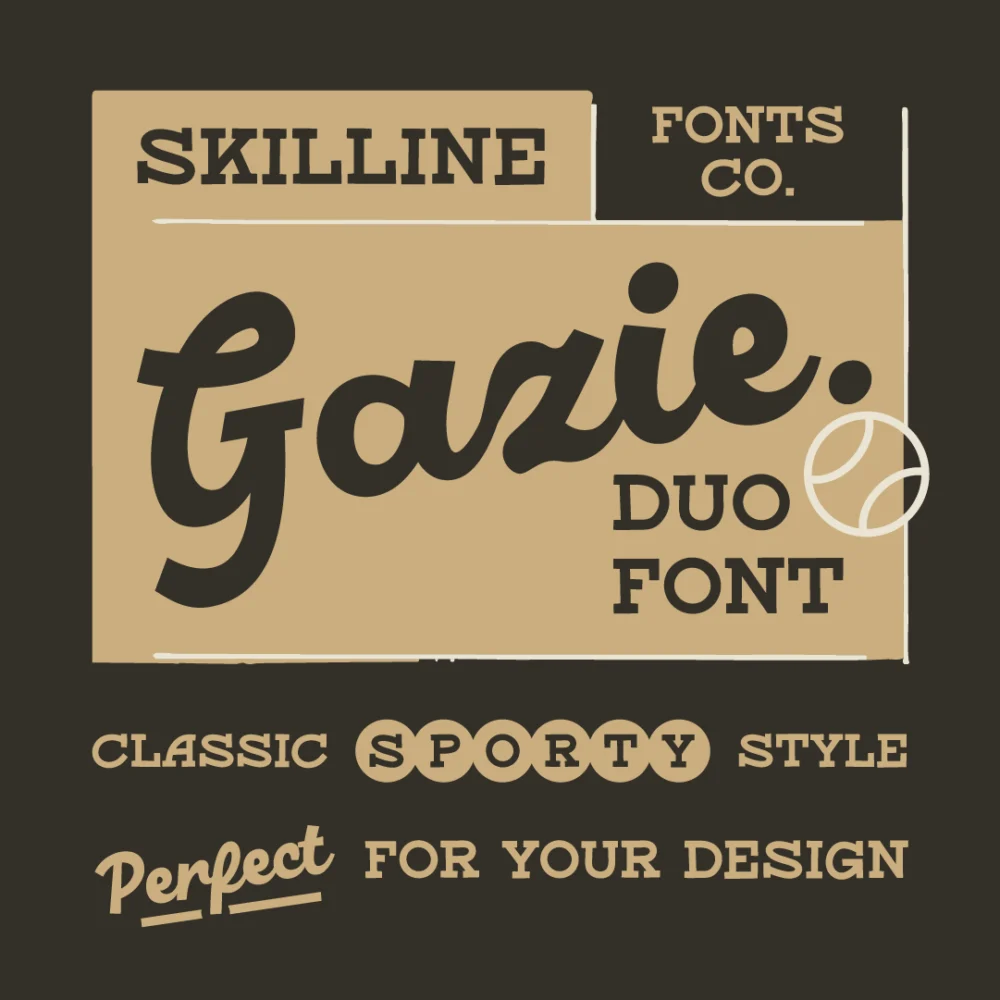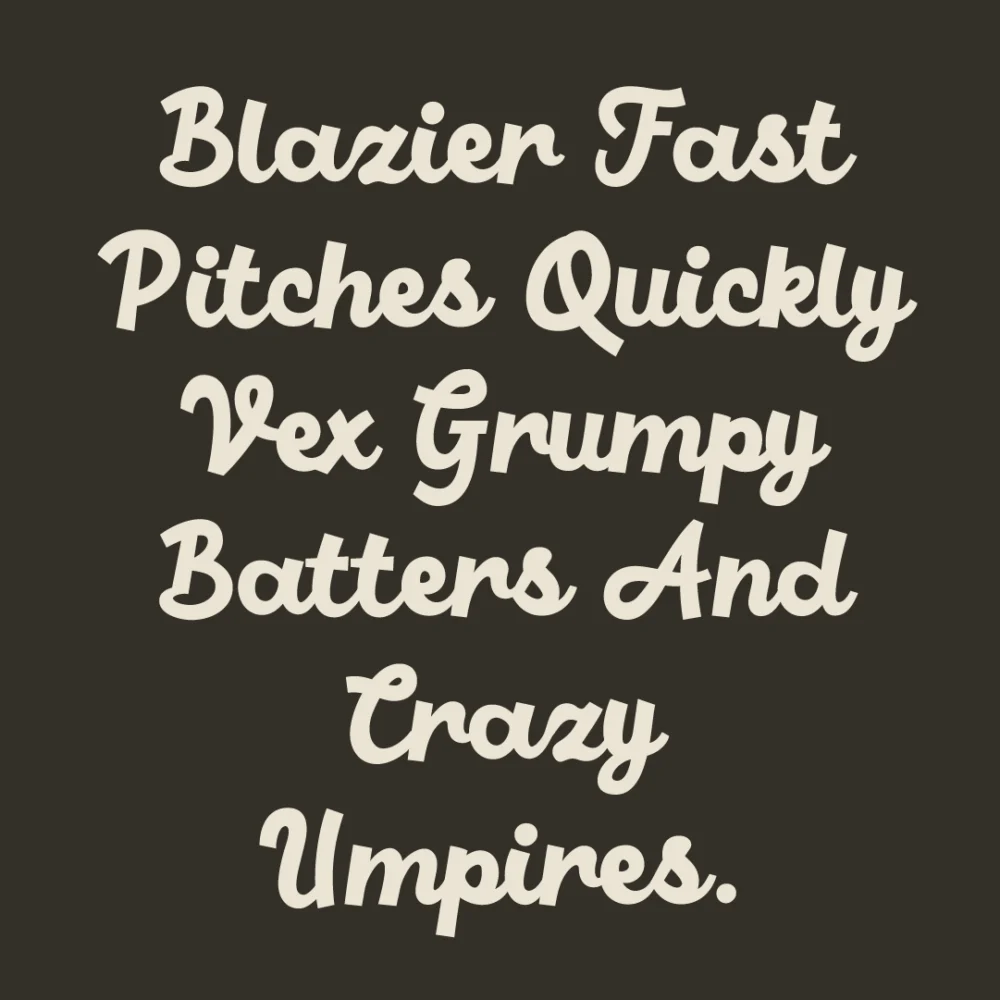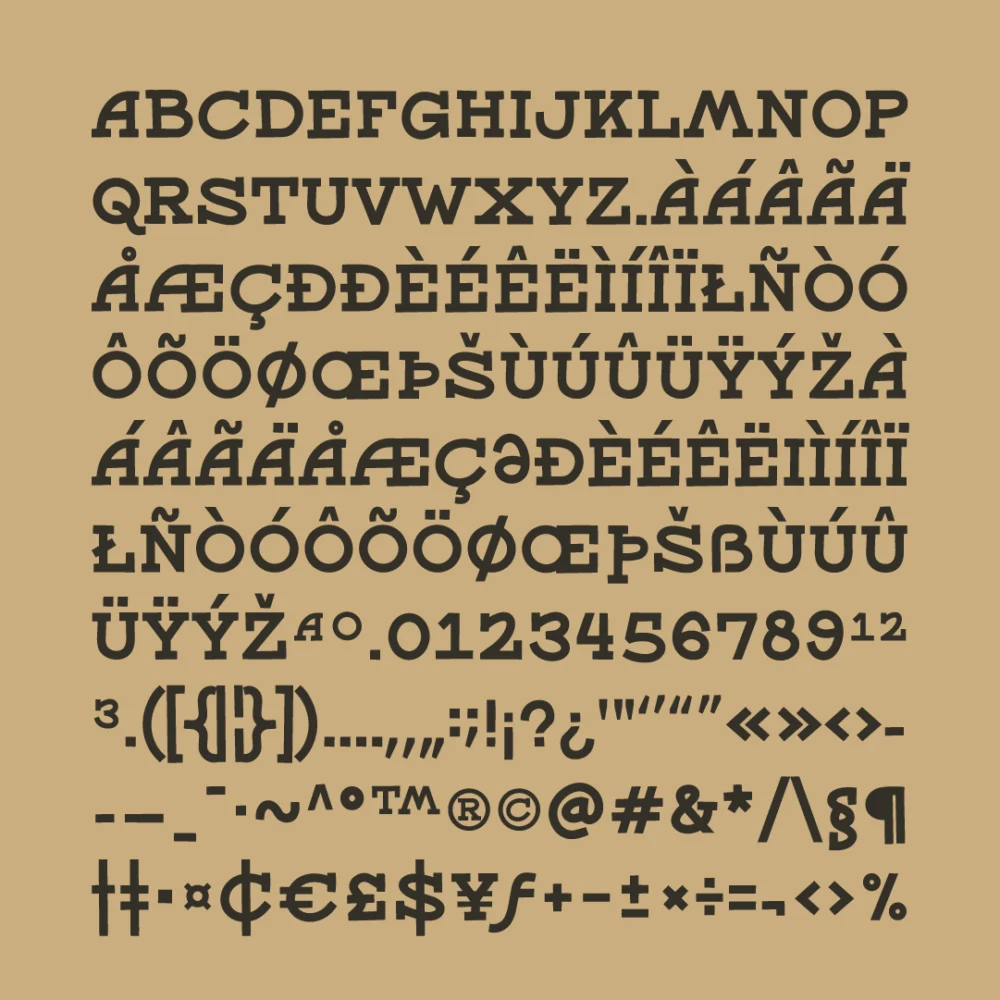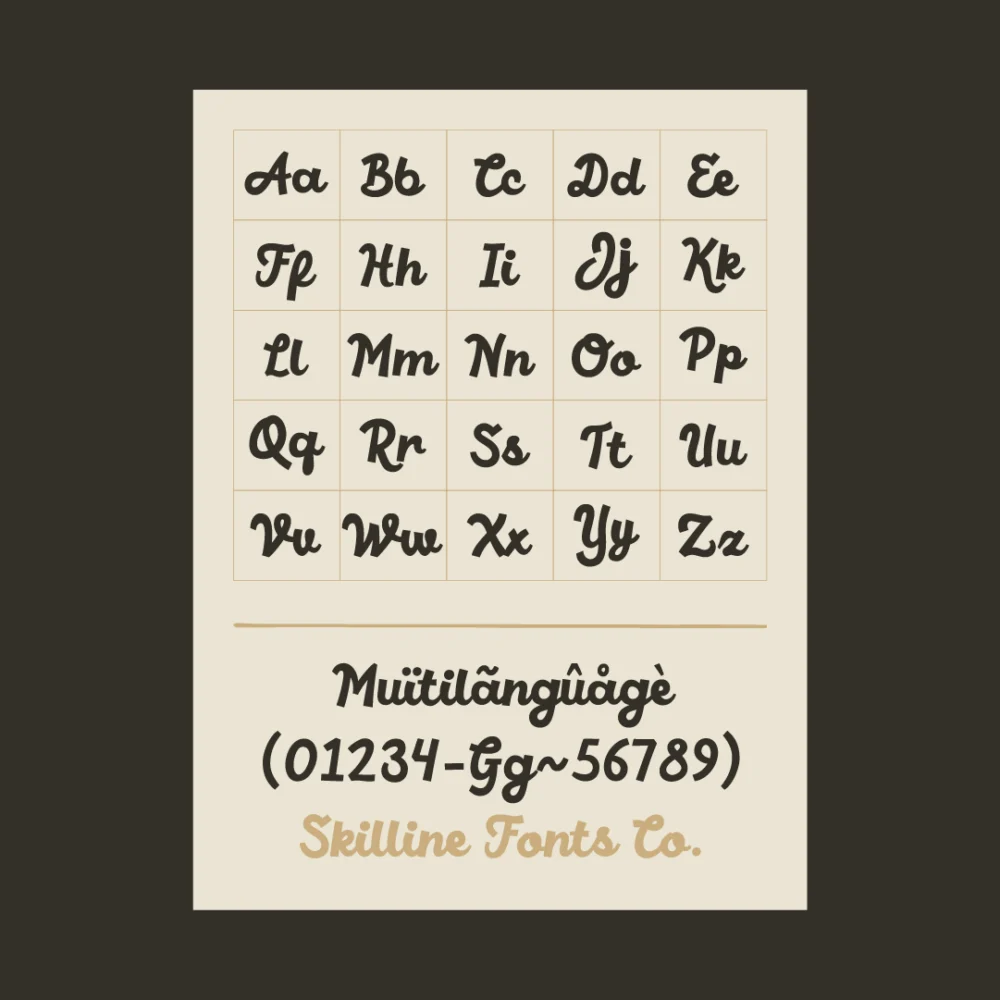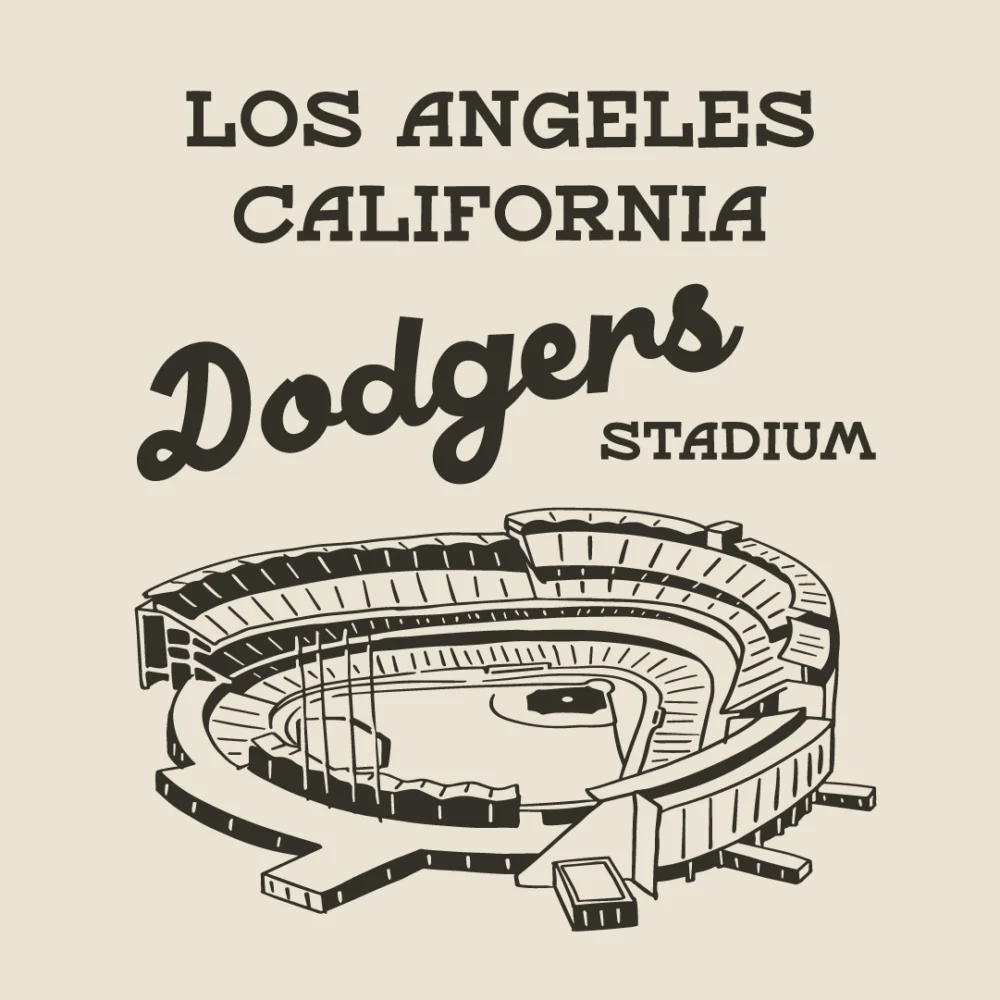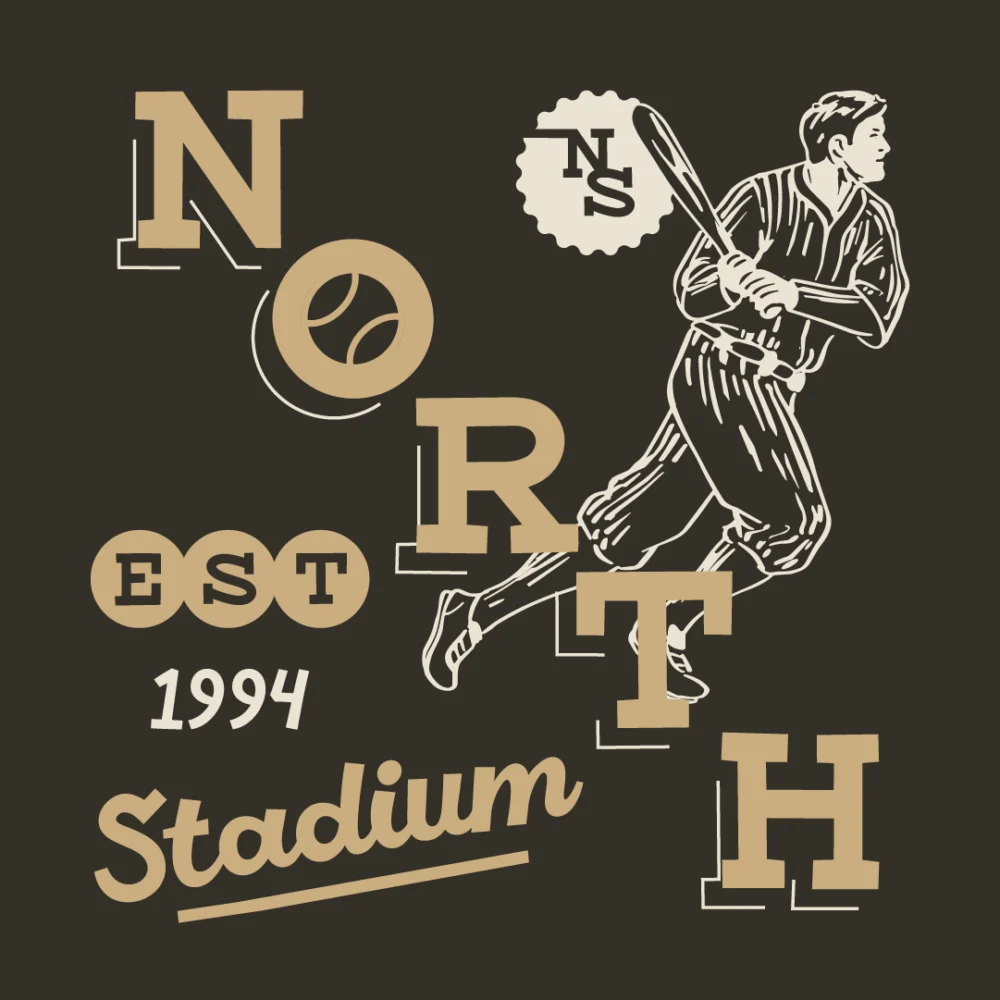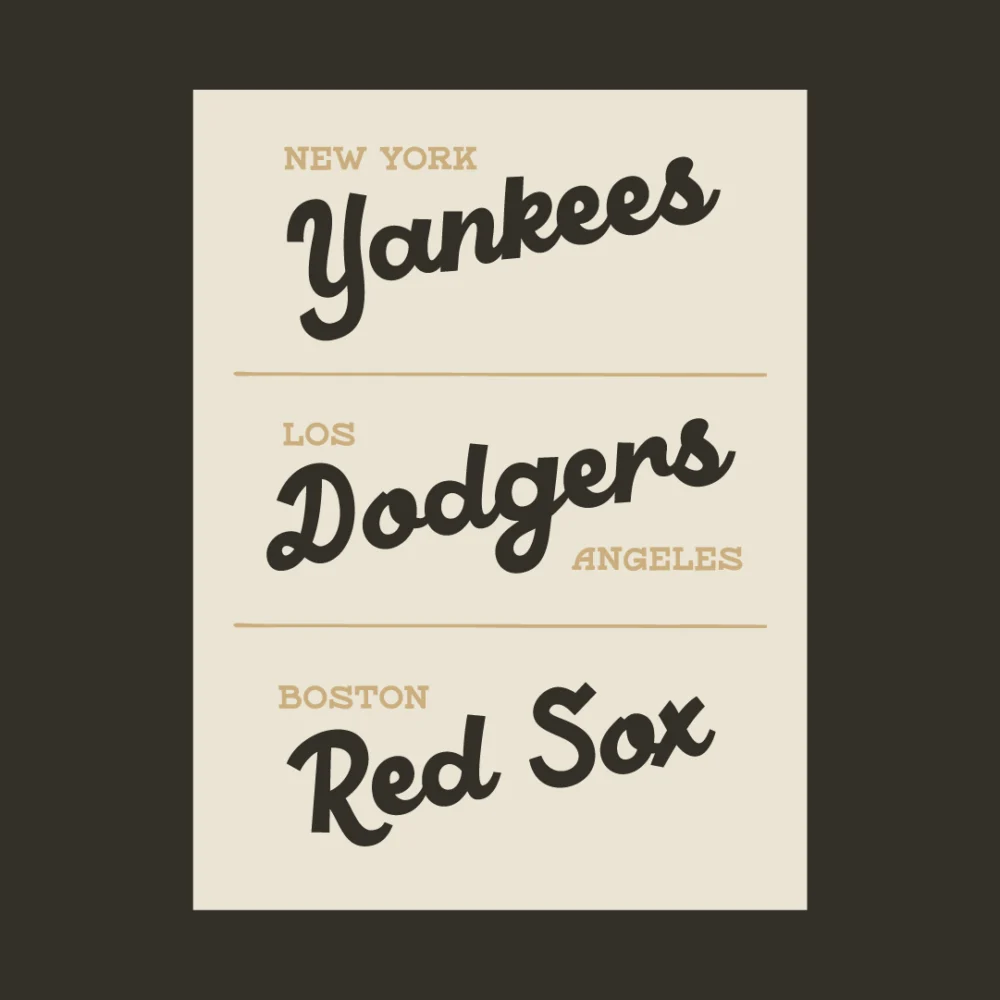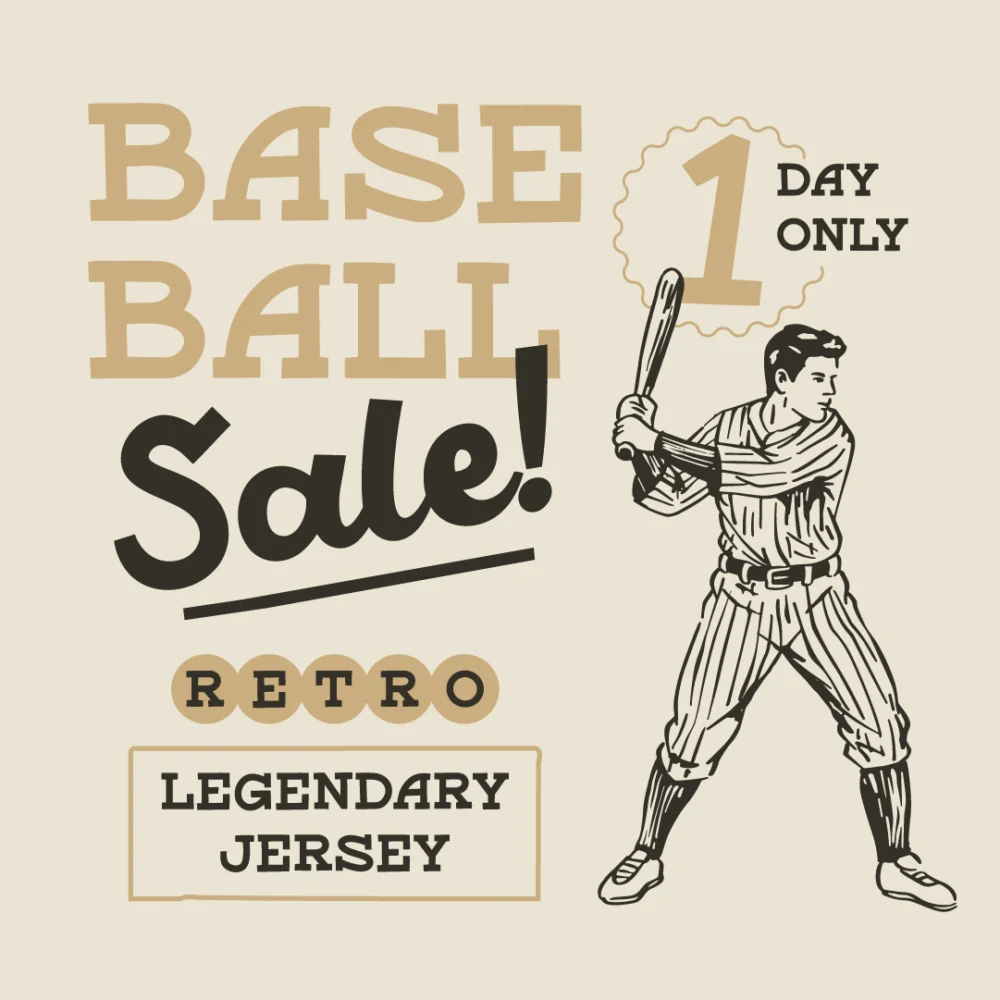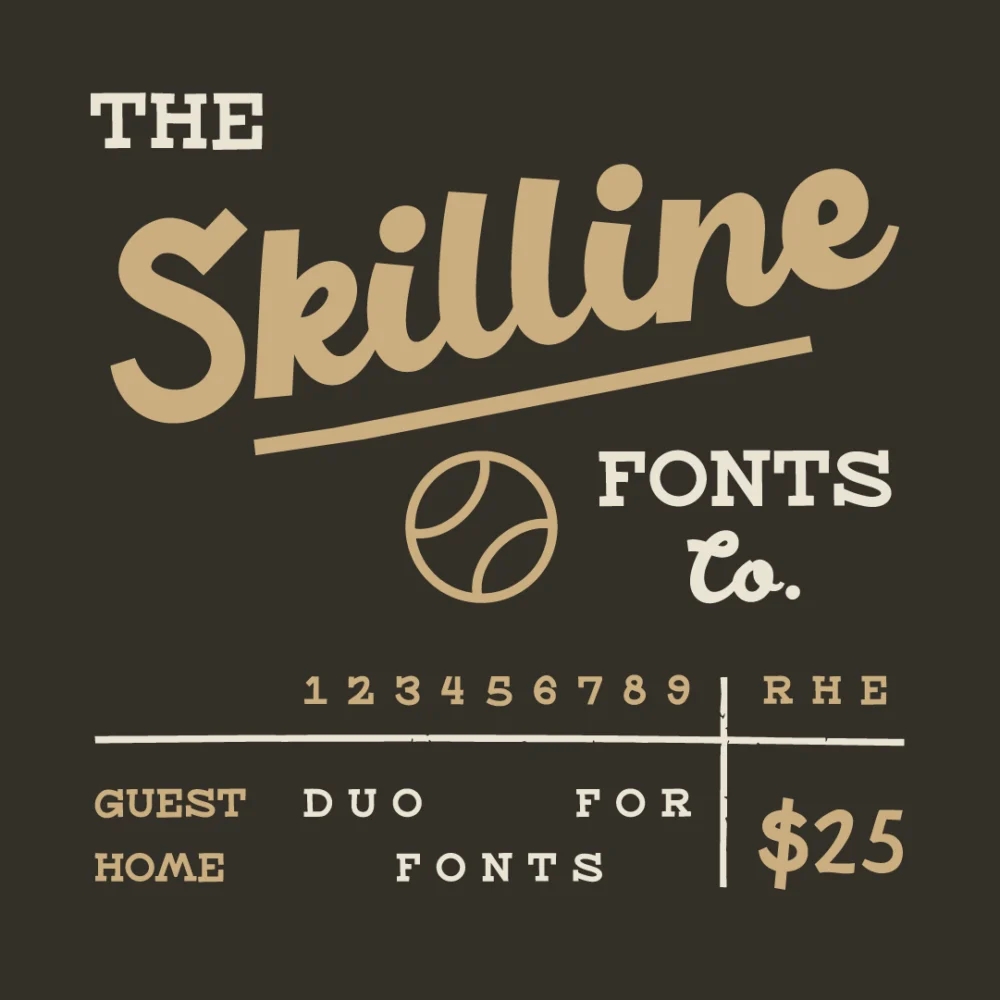
Gazie Duo is a vintage sport font duo featuring a bold retro script and classic slab serif inspired by classic baseball typography, varsity lettering, and old-school athletic branding. Perfect for baseball logos, sports branding, varsity designs, retro jerseys, team merchandise, vintage posters, baseball club branding, sportswear labels, and athletic packaging design.
The smooth script style brings energetic vintage sports vibes, while the strong slab serif adds bold structure and timeless headline impact. This powerful combination works beautifully for team logos, baseball stadium branding, jersey numbers, emblem badges, sports apparel, promotional graphics, editorial layouts, and nostalgic Americana design projects.
Gazie Duo is ideal for designers creating premium varsity branding, retro sports identities, championship merchandise, classic baseball posters, and heritage-inspired logo systems with authentic vintage character.